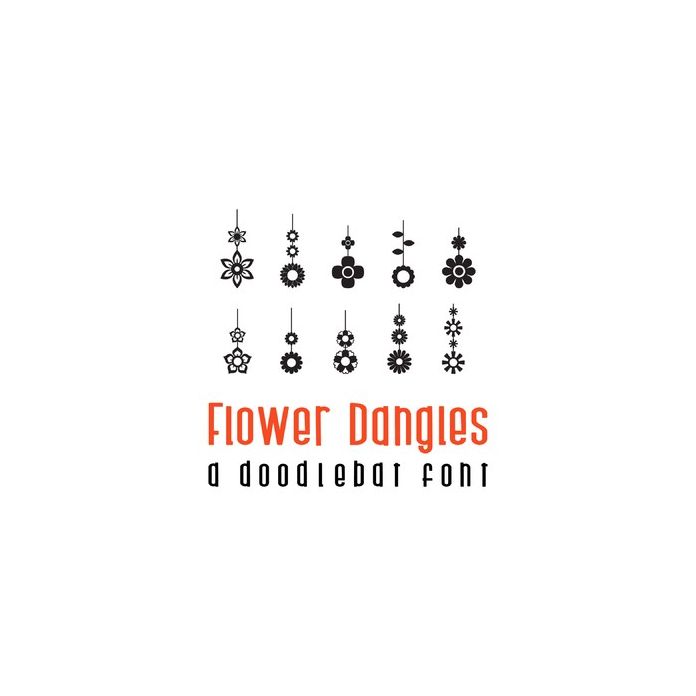
flower dangles doodlebat font
This fun doodlebat font features 26 fun flower dangles. Perfect for cards, gifts, decor, crafts, scrap book pages, planner stickers and more!